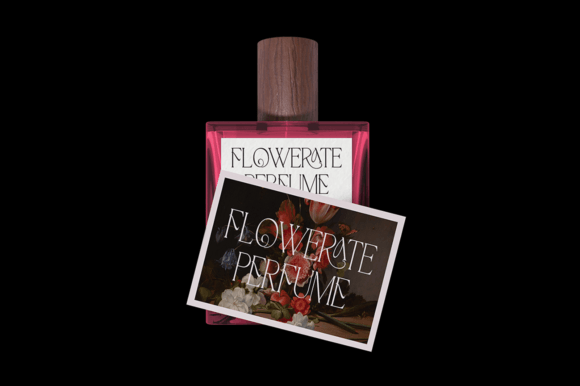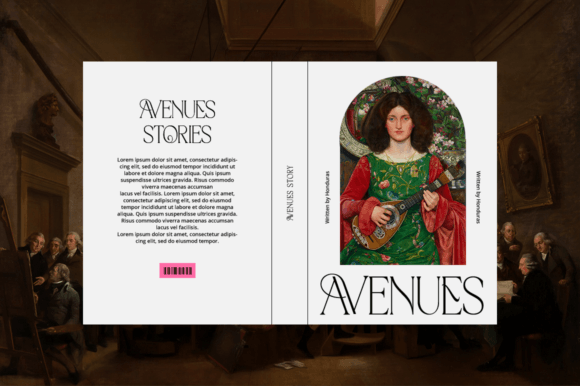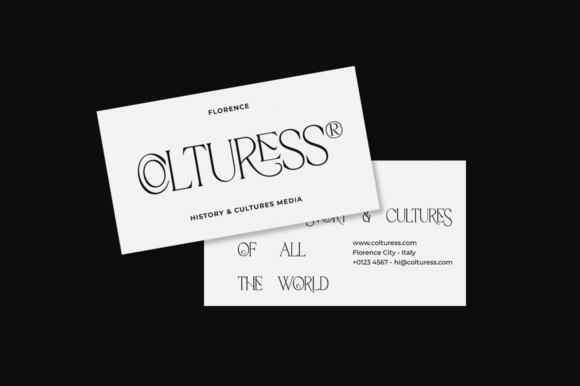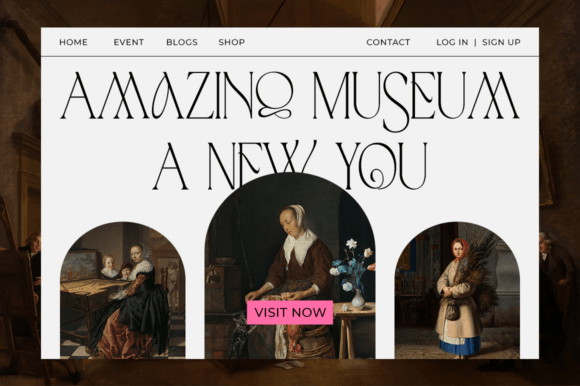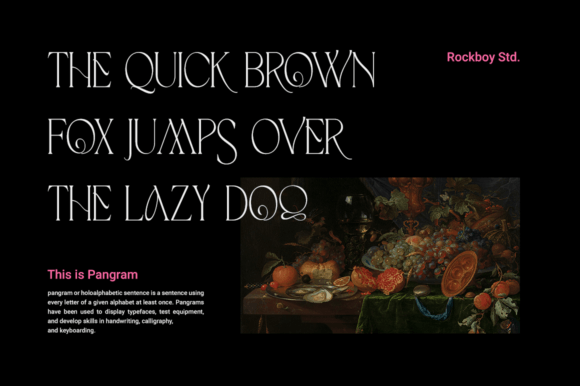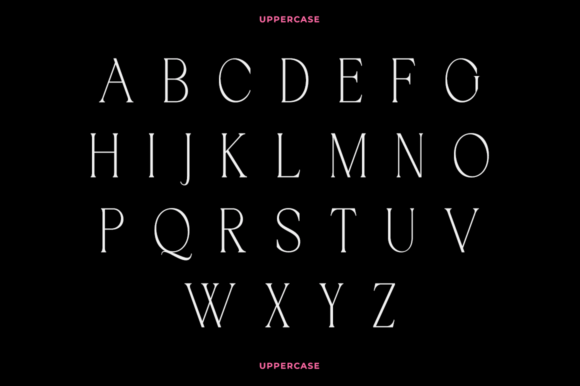
Introducing Avencore Font: The Elegant and Versatile Serif Font for Designers
Are you tired of using the same old fonts in your designs? Look no further! Avencore Font is here to elevate your typography game with its elegant, thin lettered, and distinct serif style. This beautiful font is perfect for a wide range of designs, from luxury branding to wedding invitations, and everything in between.
What Makes Avencore Font Special?
Avencore Font boasts a neat and clean style that makes it incredibly versatile. Its thin letters and delicate serifs give it a sophisticated and refined look that’s sure to impress. Whether you’re designing a logo, brochure, or social media graphics, Avencore Font is the perfect choice.
Key Features of Avencore Font
Here are the key features that make Avencore Font an excellent addition to your font library:
- Elegant and refined design: Avencore Font features a beautiful, thin lettered and distinct serif style that’s perfect for creating sophisticated designs.
- Versatile and adaptable: The font’s clean and neat style makes it suitable for a wide range of designs, from luxury branding to digital graphics.
Why Choose Avencore Font?
With so many fonts available, why choose Avencore Font? Here are just a few reasons why designers and crafters love this elegant serif font:
- Unique and distinctive: Avencore Font’s delicate serifs and thin letters give it a unique and distinctive look that sets it apart from other fonts.
- Easily readable: Despite its elegant design, Avencore Font remains easily readable, even at small sizes.
- Time-saving: With Avencore Font, you can create professional-looking designs in no time. Its versatility and adaptability save you time and effort in finding the perfect font for your project.
How to Use Avencore Font in Your Designs
Using Avencore Font in your designs is easy! Here are a few tips to get you started:
- Pair it with bold fonts: Combine Avencore Font with bold fonts for a striking contrast that adds visual interest to your designs.
- Use it for headings and titles: Avencore Font’s elegant design makes it perfect for headings and titles. Use it to add a touch of sophistication to your designs.
- Experiment with colors and textures: Avencore Font works beautifully with a range of colors and textures. Experiment with different combinations to find the perfect look for your design.
Avencore Font is an exceptional addition to any designer’s font library. Its elegant, thin lettered, and distinct serif style makes it perfect for a wide range of designs. With its PUA encoded characters, multi-format support, and ease of use, Avencore Font is sure to become your go-to font for all your design needs. So why wait? Get Avencore Font today and take your designs to the next level!